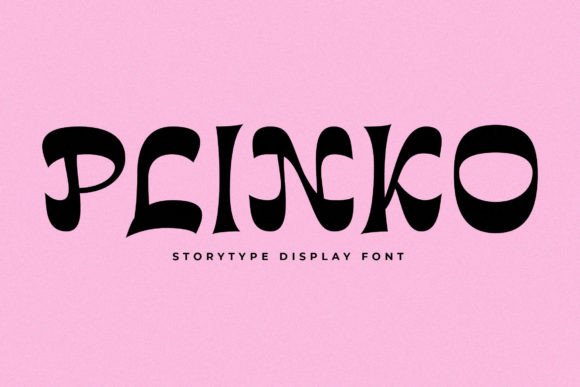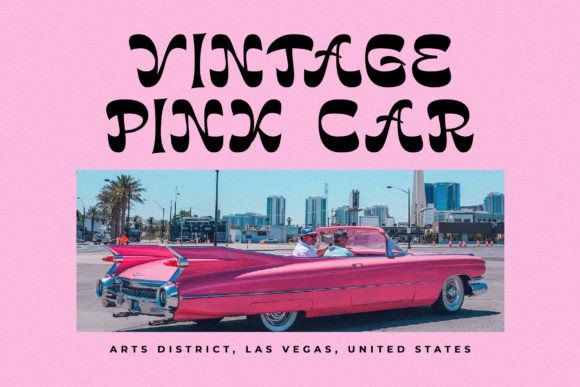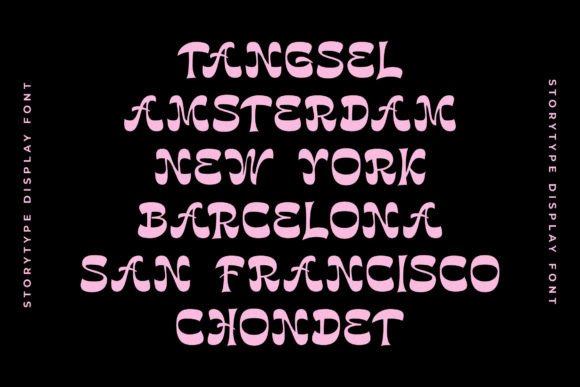
Plinko Font: A Playful Display Font for Retro & Creative Designs
About the Plinko Font
Explore the possibilities with Plinko Font, a font that offers both beauty and functionality. Proudly present Plinko Typeface.
A serif modern and classic typeface that has its own unique style & modern look.
This typeface is perfect for an elegant & luxury logo, book or movie title design, fashion brand, magazine, clothes, lettering, quotes, and so much more.
Plinko’s elegant and classic serif design excels in headlines, logos, and short-form text applications such as packaging or posters. Its refined aesthetic lends itself well to luxury branding and projects requiring a sophisticated feel. However, its detailed serifs make it less suitable for body text or UI elements where readability at smaller sizes is crucial.
For optimal visual harmony, pair Plinko with a clean sans-serif like Montserrat for a contemporary contrast, or a playful script font like Great Vibes for a touch of vintage charm. A geometric sans-serif like Futura would offer a modern, balanced pairing, while a more traditional serif like Garamond provides a classic, harmonious complement.
Plinko projects a sophisticated and timeless personality, ideal for brands focused on quality, heritage, or a sense of refined luxury. Its balanced boldness makes it versatile within these applications, conveying both elegance and a confident presence.